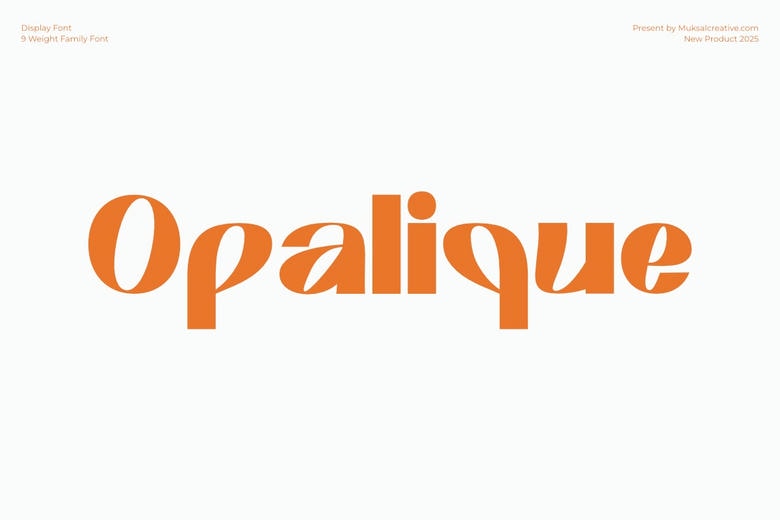
Opalique Font
Opalique is sophisticated and elegant font family that has borrowed some of the details of traditional serif and fibre fonts. This typeface is named opal, which represents one of the most beautiful stones, characterized with gentle and soft lines.
It is available in nine styles starting from Thin that has a thin vertical line and ending with Black that has a very thick underline for more emphasis; it can be used in various designs. Featuring subtle Art Deco inspiration and a futuristic flavor, Opalique fits in well with luxury branding, contemporary design problems, fashion type and others that require an air of exclusivity.
Opalique Sans Serif Font